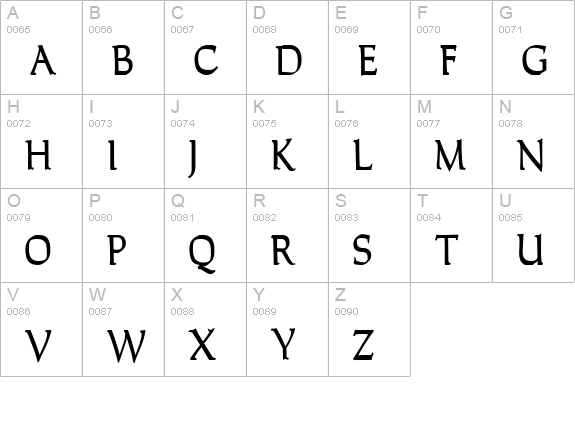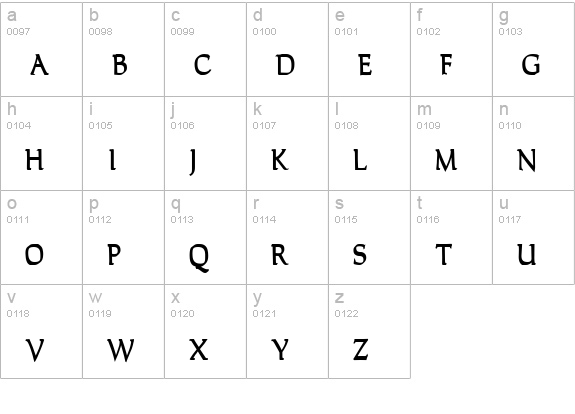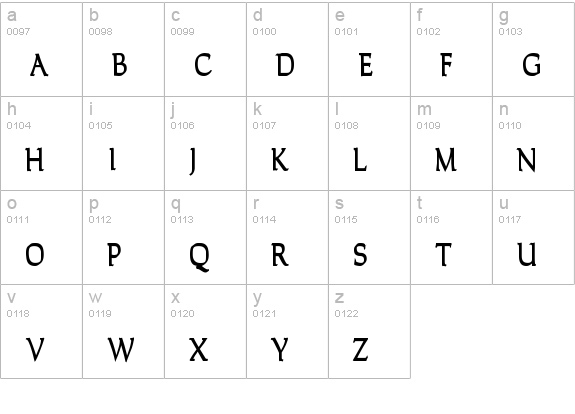
Carla Thin Bold is a delicate, low-contrast variant in the Carla typeface family \xE2\x80\x94 well suited to fashion editorial, minimal branding, and high-contrast display.
Introducing Carla Thin Bold font - a sleek and modern typeface that exudes sophistication and elegance. With its clean lines and bold strokes, this font is perfect for making a statement in your design projects. Whether you're creating stylish logos, eye-catching headlines, or striking posters, Carla Thin Bold will add a touch of class to your work. And the best part? Carla Thin Bold font is available for free download at FontsMarket.com! That's right, you can elevate your designs without breaking the bank. Don't miss out on this opportunity to enhance your projects with this stunning font. Download Carla Thin Bold today and take your designs to the next level.